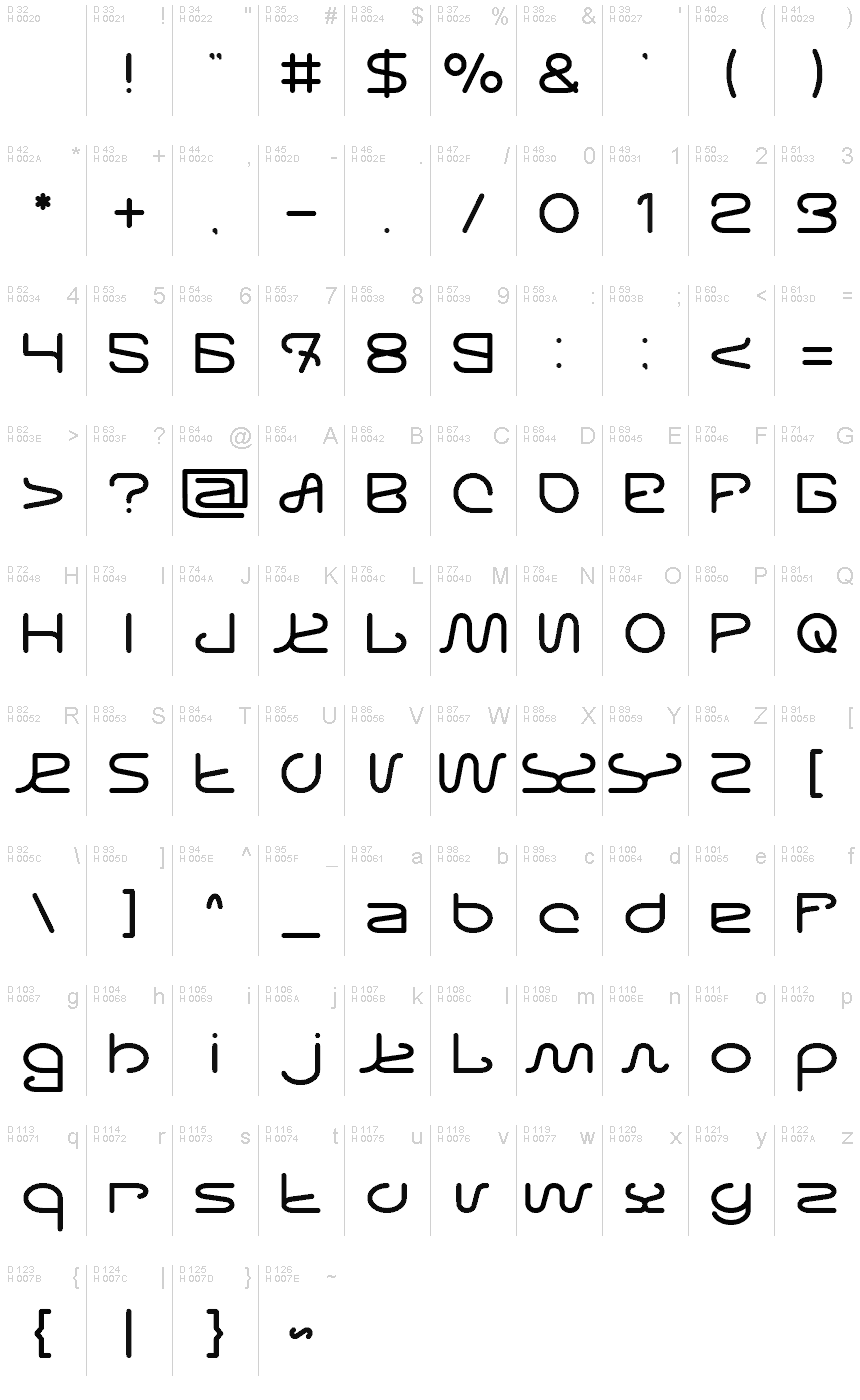
Letting The Cabble Sleep
Letting the Cabble Sleep, a captivating display font crafted by Weknow, exudes a distinct techno-inspired flair. With its expanded width and striking geometric forms, this font commands attention, evoking a sense of futuristic elegance. The clean lines and sharp edges create a bold, impactful visual that effortlessly blends modern sensibilities with a touch of retro charm.
Versatile in its applications, Letting the Cabble Sleep lends itself to a diverse range of design projects, from eye-catching event branding and packaging to futuristic user interfaces and digital media. Its expanded width and technical aesthetic make it an ideal choice for headlines, logos, and display text, where it can command the viewer's attention and convey a sense of technological sophistication.